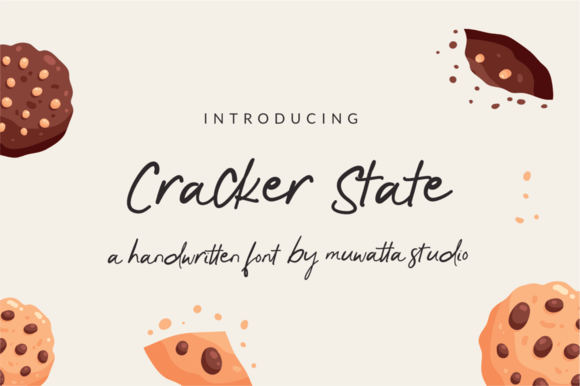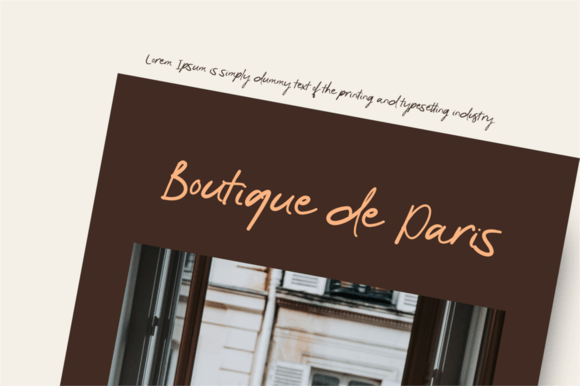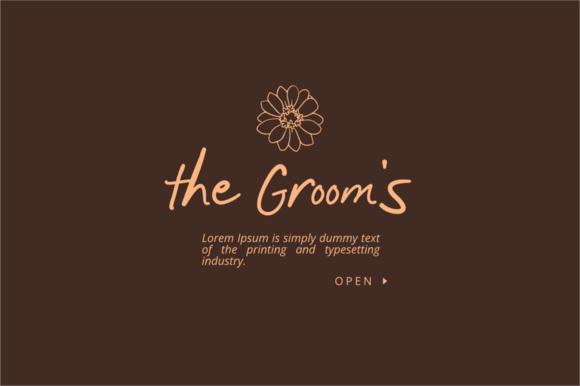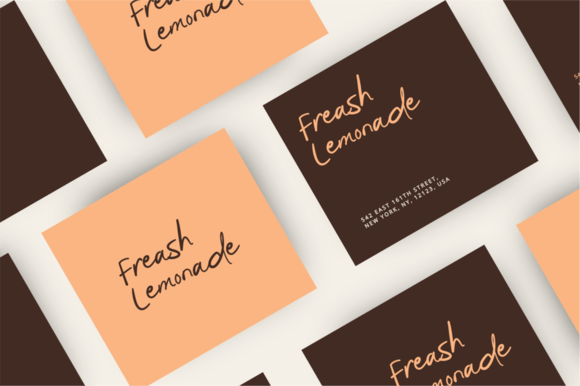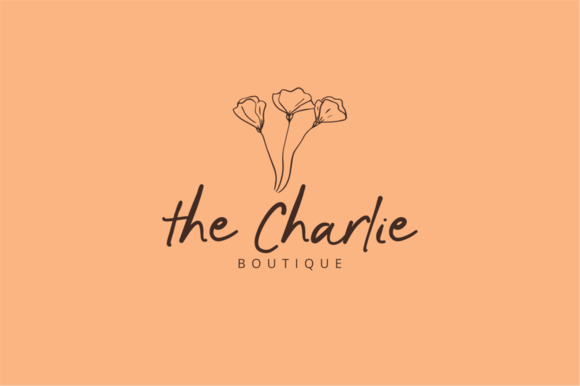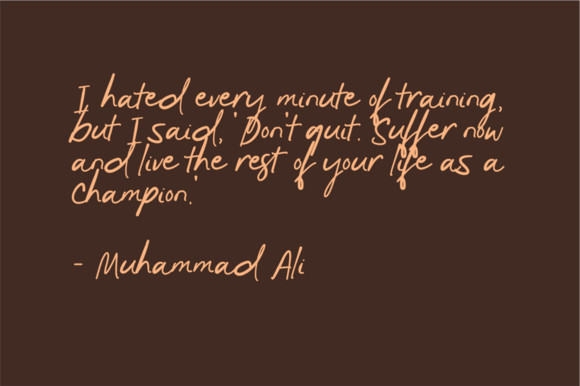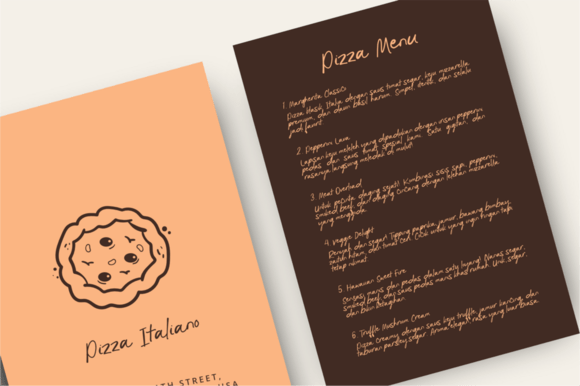
Discovering the Perfect Recipe for Typography
As designers, we’ve all been there – staring at a blank canvas, searching for the perfect font to bring our creative vision to life. For me, that moment came when I stumbled upon the Cracker State Font. Its charming, handwritten style was like a warm hug on a cold winter morning, inviting me to create something truly special.
The Cracker State Font is a versatile and playful typeface that adds a touch of whimsy to any design project. Whether you’re branding a bakery, creating educational materials, or designing fun kitchen-themed merchandise, this font is the perfect companion. Its approachable nature and easy-to-read design make it an excellent choice for designers who want to add a layer of authenticity and personality to their work.
Cracker State Font Key Features
- Font Family: Cracker State is a custom font designed for the state of California.
- Resolution: The font is designed to be scalable, making it suitable for both digital and print applications.
- Unique Characteristics: Cracker State features a unique blend of modern and rustic elements, making it a distinctive choice for California-themed designs.
Cracker State Font Review
I recently had the chance to work with the Cracker State Font, and I have to say, it’s a unique and interesting addition to any design project. ✨ The font’s bold and playful feel makes it perfect for creating eye-catching headlines and titles. It’s also versatile enough to be used for body text, making it a great choice for blogs, articles, and websites.
One of the standout features of Cracker State Font is its wide range of weights and styles, which allows designers to easily create a cohesive visual identity. ✨ The font also includes a variety of ligatures and swashes, adding an extra layer of personality to any design.
While Cracker State Font is a great choice for many projects, there are some limitations to be aware of. ⚠️ The font may not be suitable for projects that require a more formal or traditional tone, as its playful feel may not be fitting. Additionally, the font’s bold weights can be overwhelming in certain contexts, so it’s essential to use them judiciously.
Overall, I think the Cracker State Font is a great addition to any designer’s toolkit. While it may not be the best choice for every project, its unique personality and versatility make it a great option for designers looking to add some flair to their work.
Recommendations
- Use Cracker State Font for projects that require a playful or eye-catching tone.
- Experiment with the font’s various weights and styles to create a cohesive visual identity.
- Avoid using Cracker State Font for projects that require a formal or traditional tone.
Cracker State Font is a versatile font that can be used in a variety of applications, including:
– Branding and logo design
– Marketing materials, such as brochures and flyers
– Web design and development
– Editorial and publishing design
To get the most out of Cracker State Font, use it consistently across all your design elements to create a cohesive and recognizable brand identity.